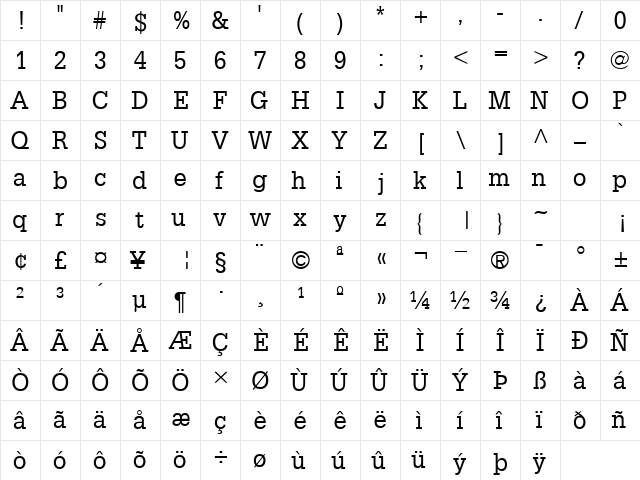
InstallationSSK Regular Font Preview
InstallationSSK Regular
Design Context for InstallationSSK Typeface
InstallationSSK is a composed and adaptable typeface that performs quietly and consistently across a wide range of design contexts.